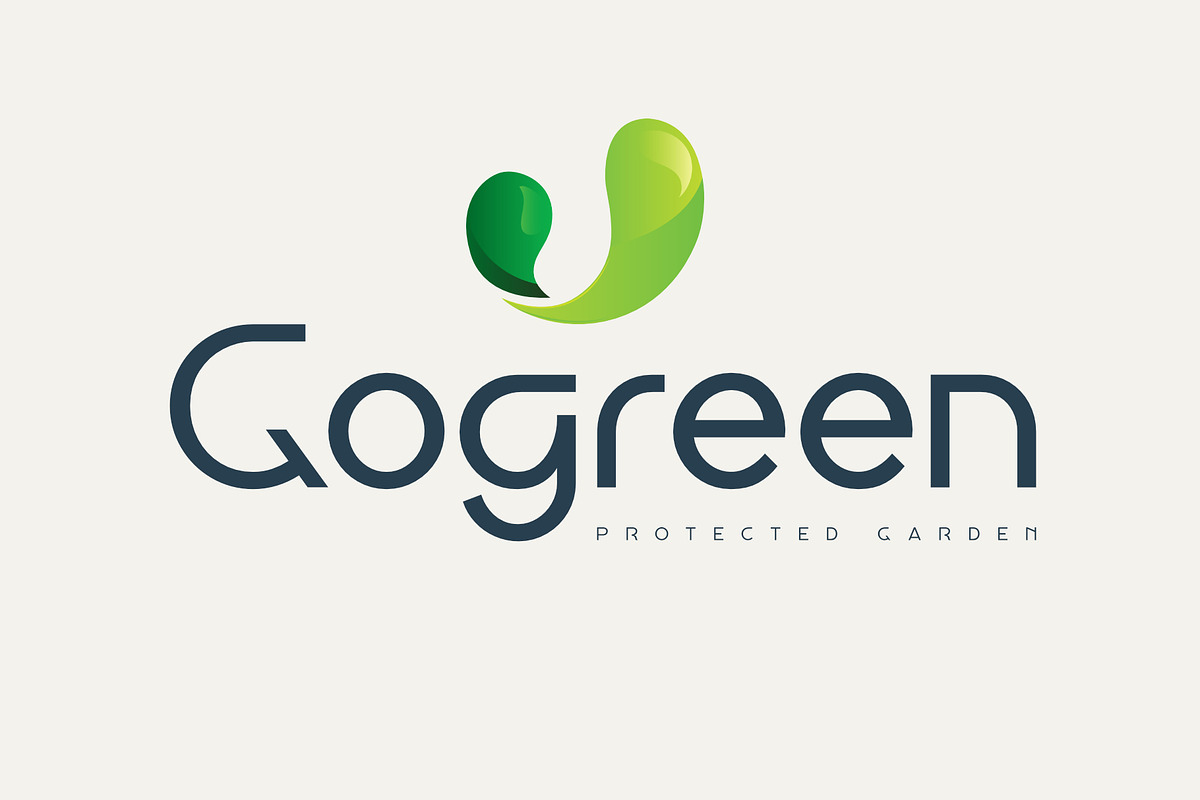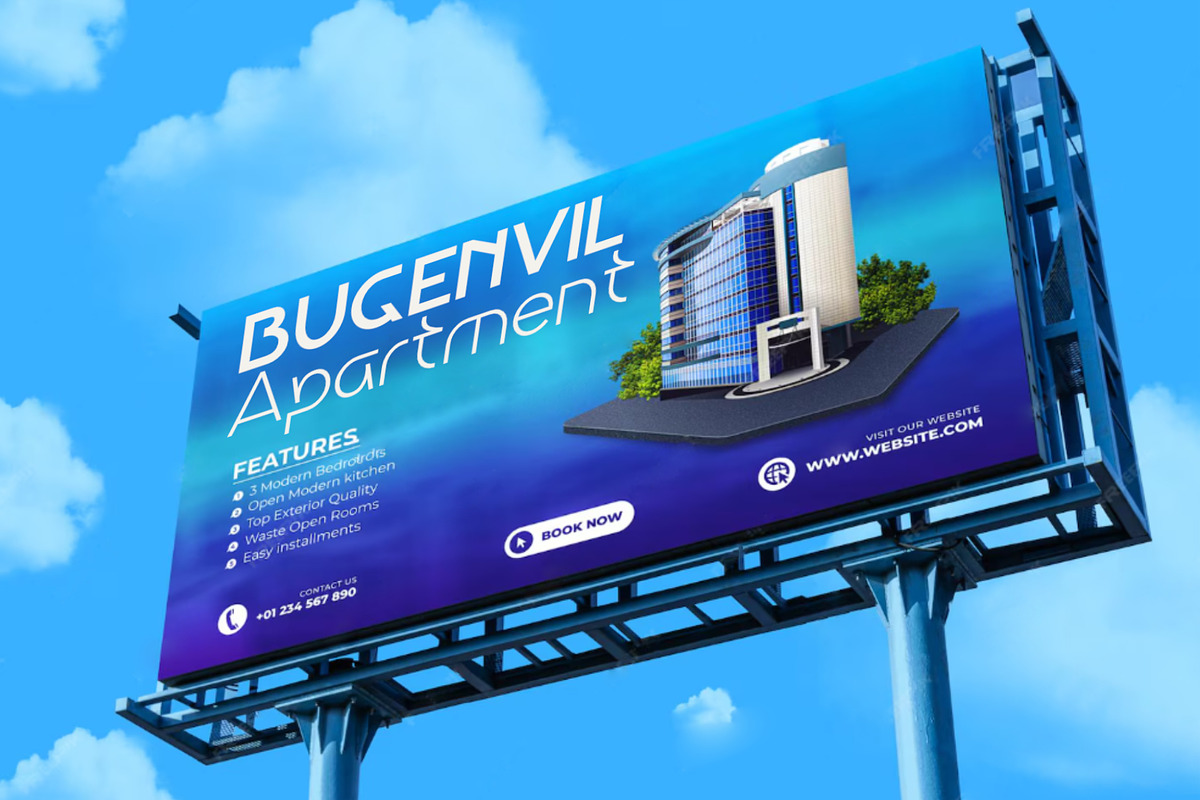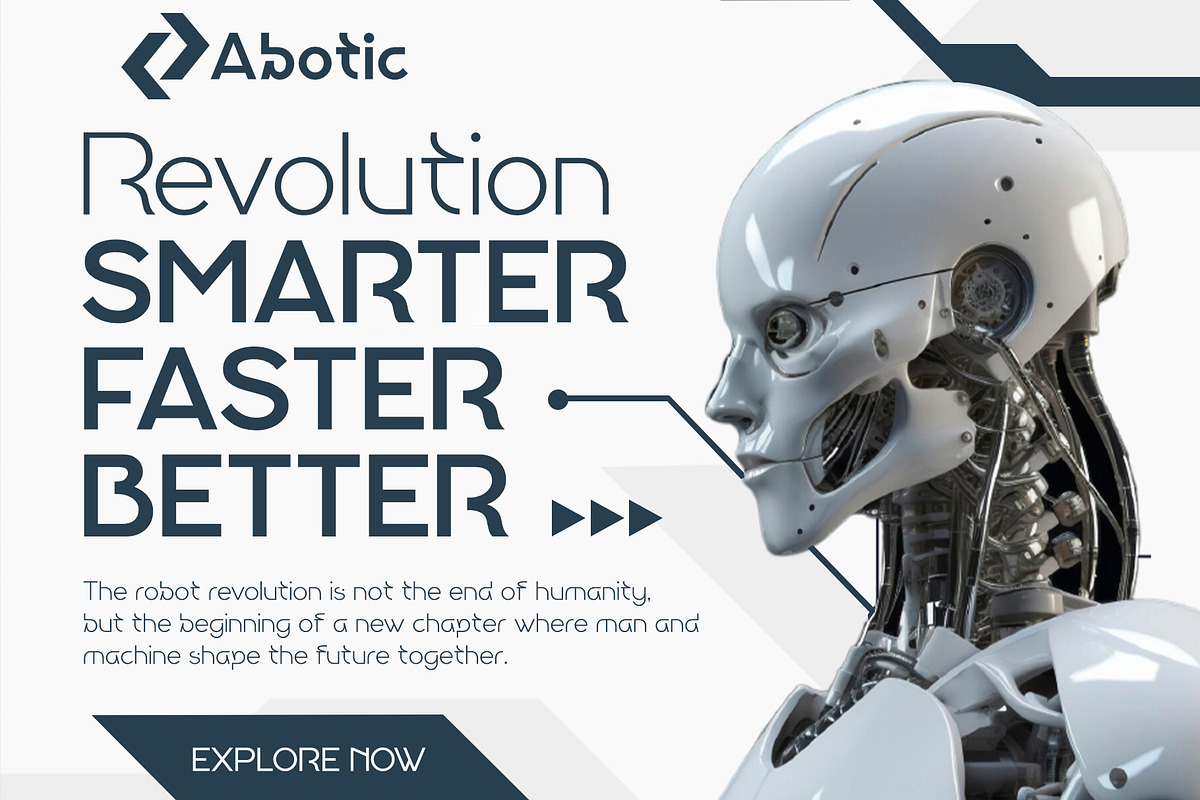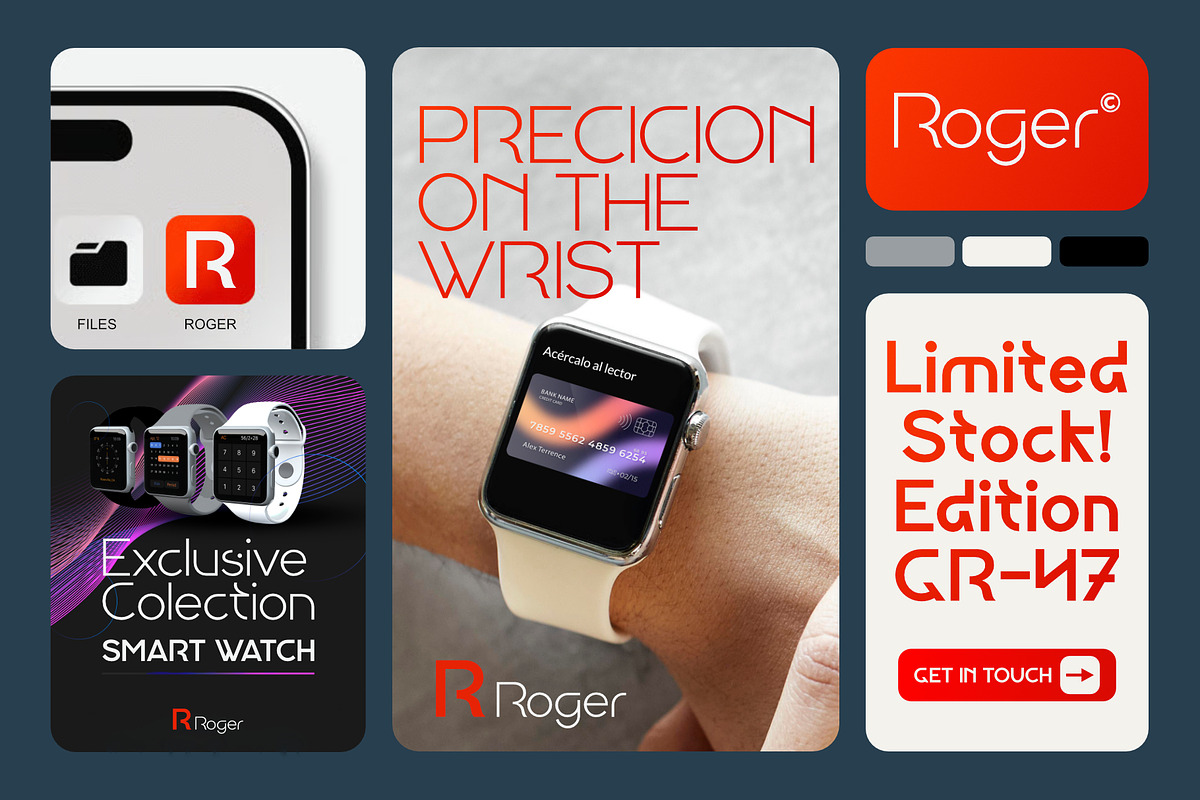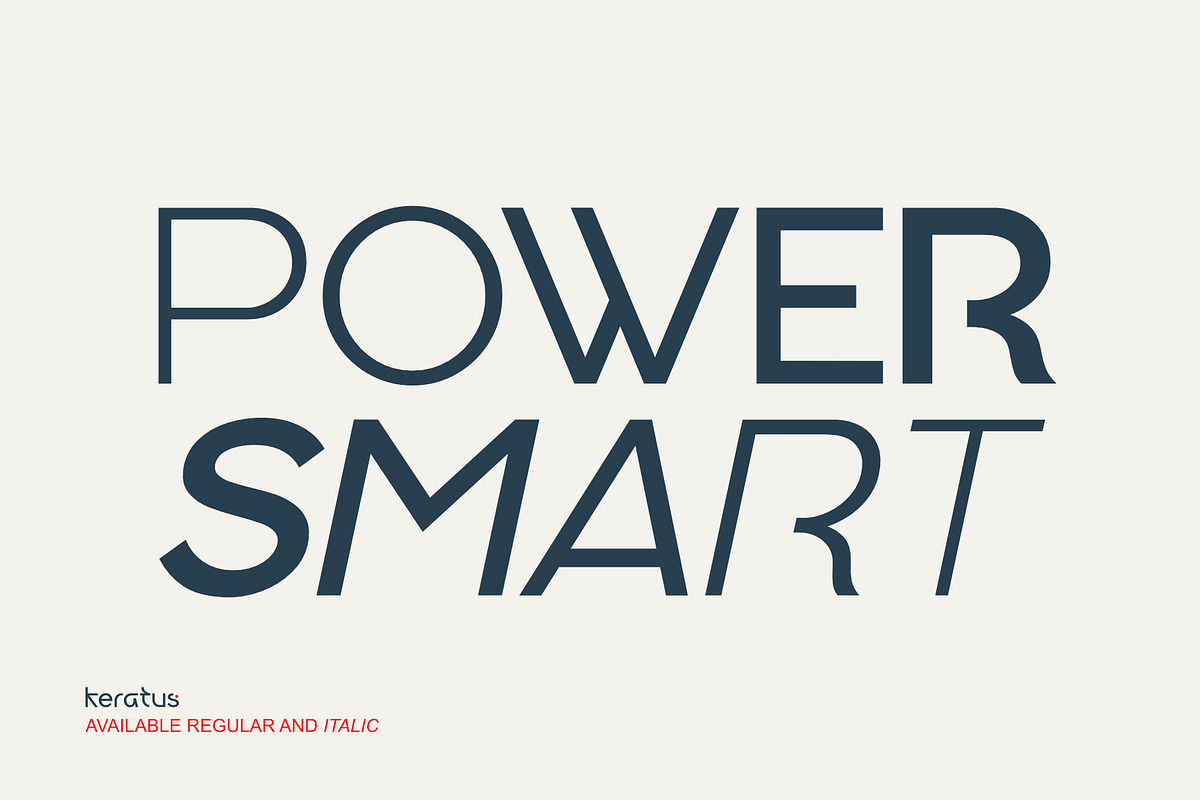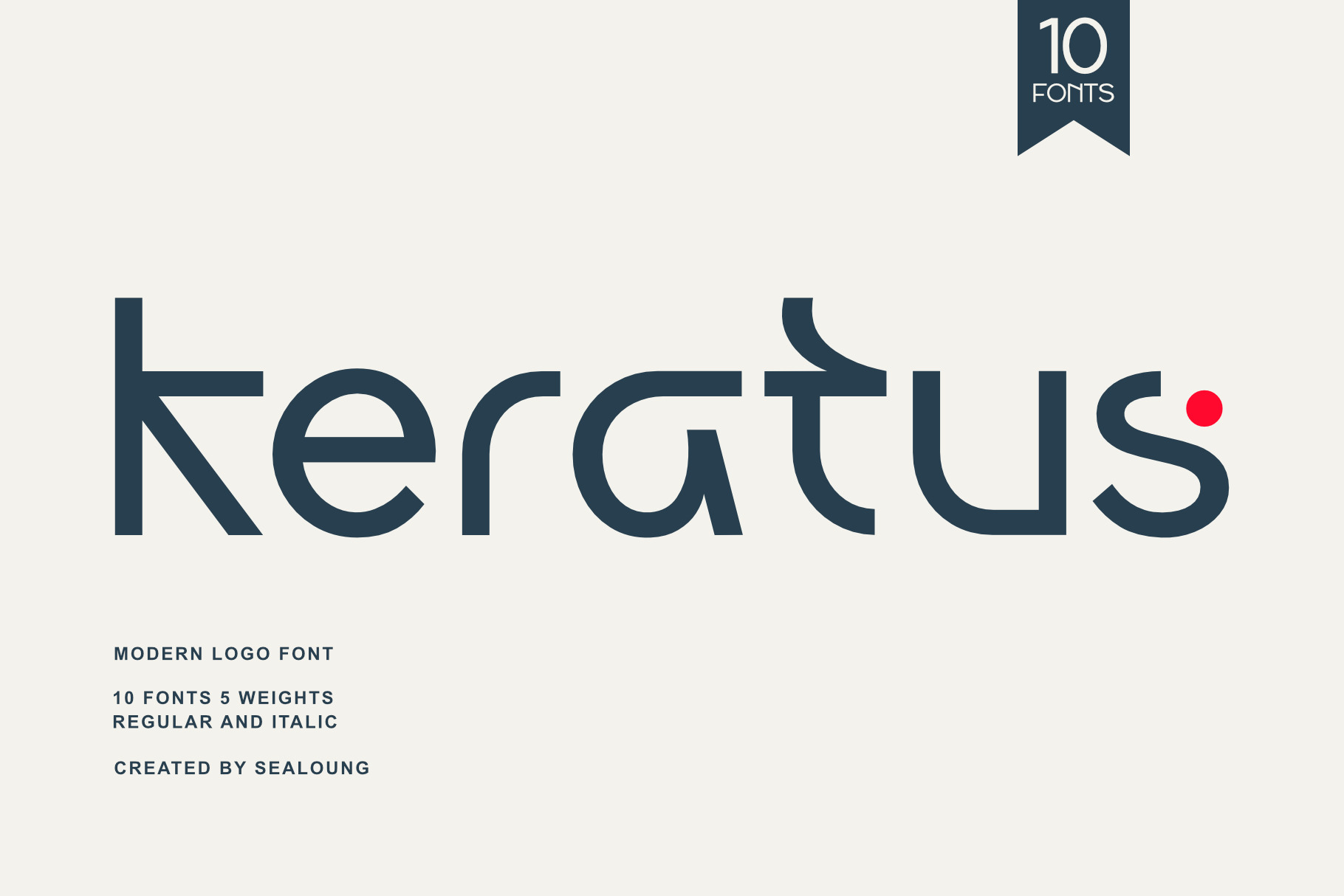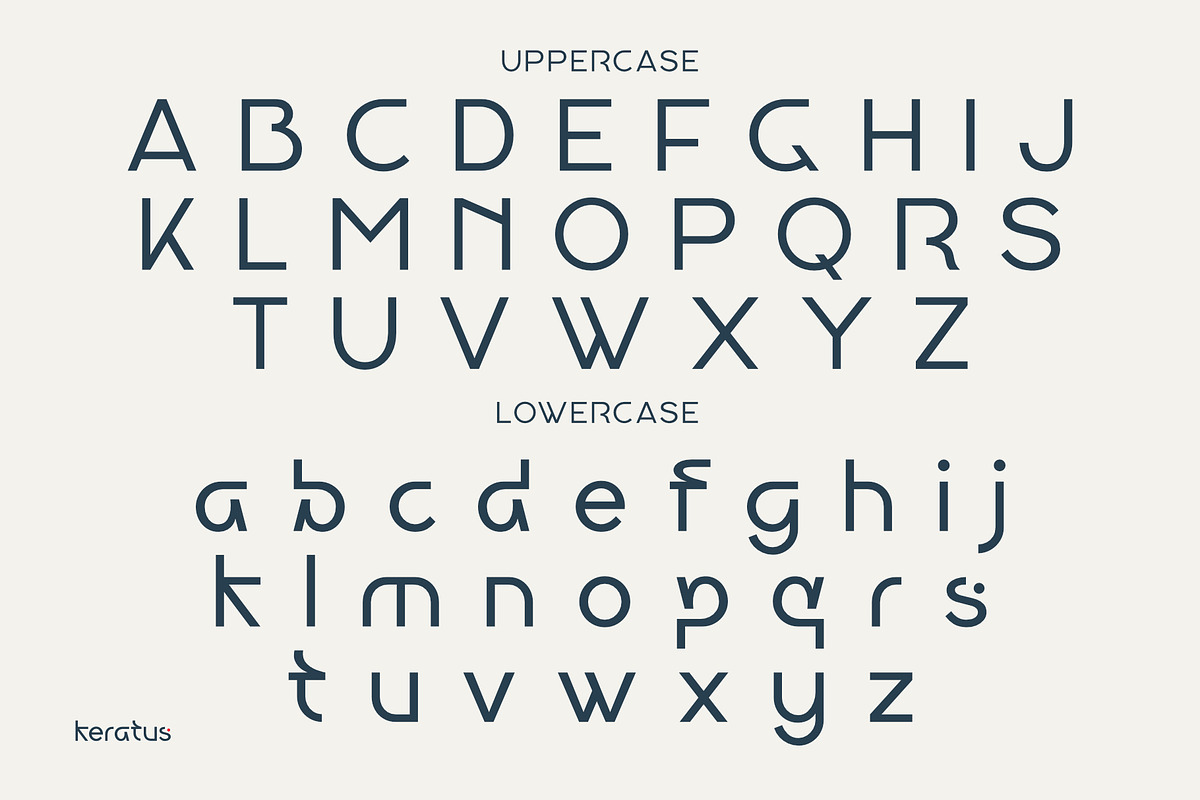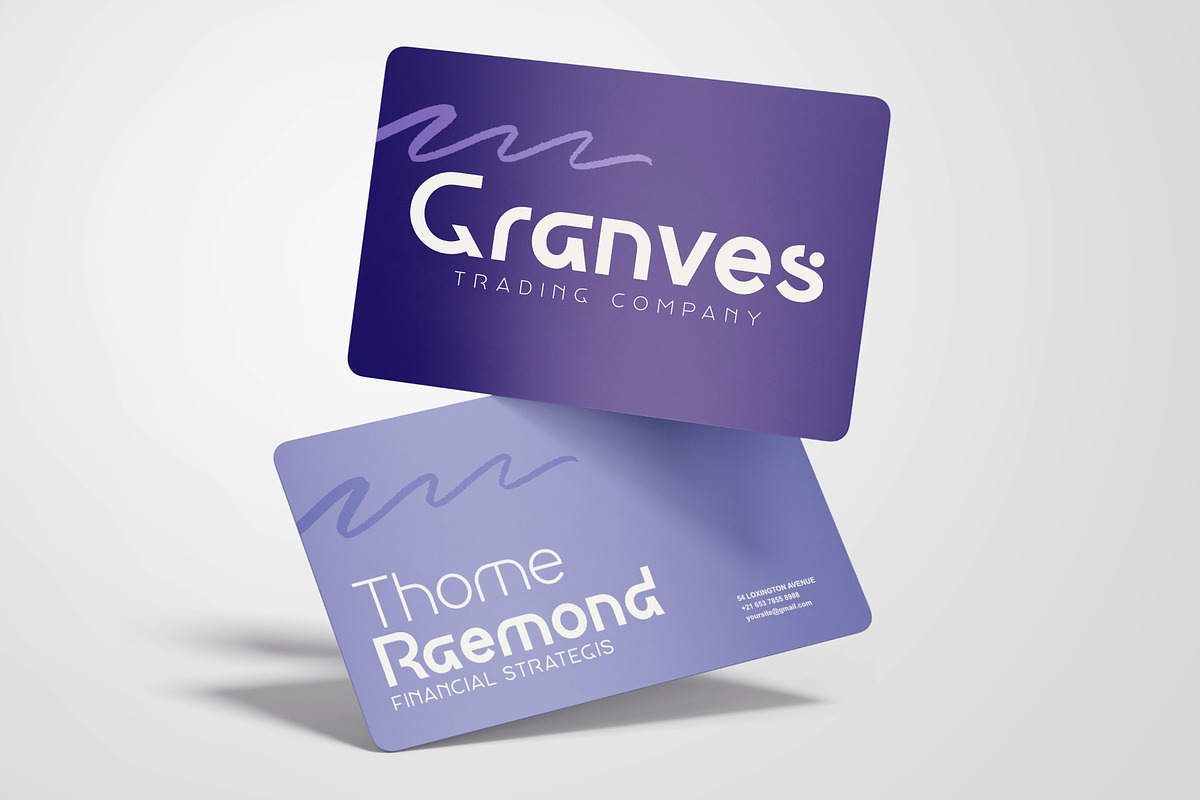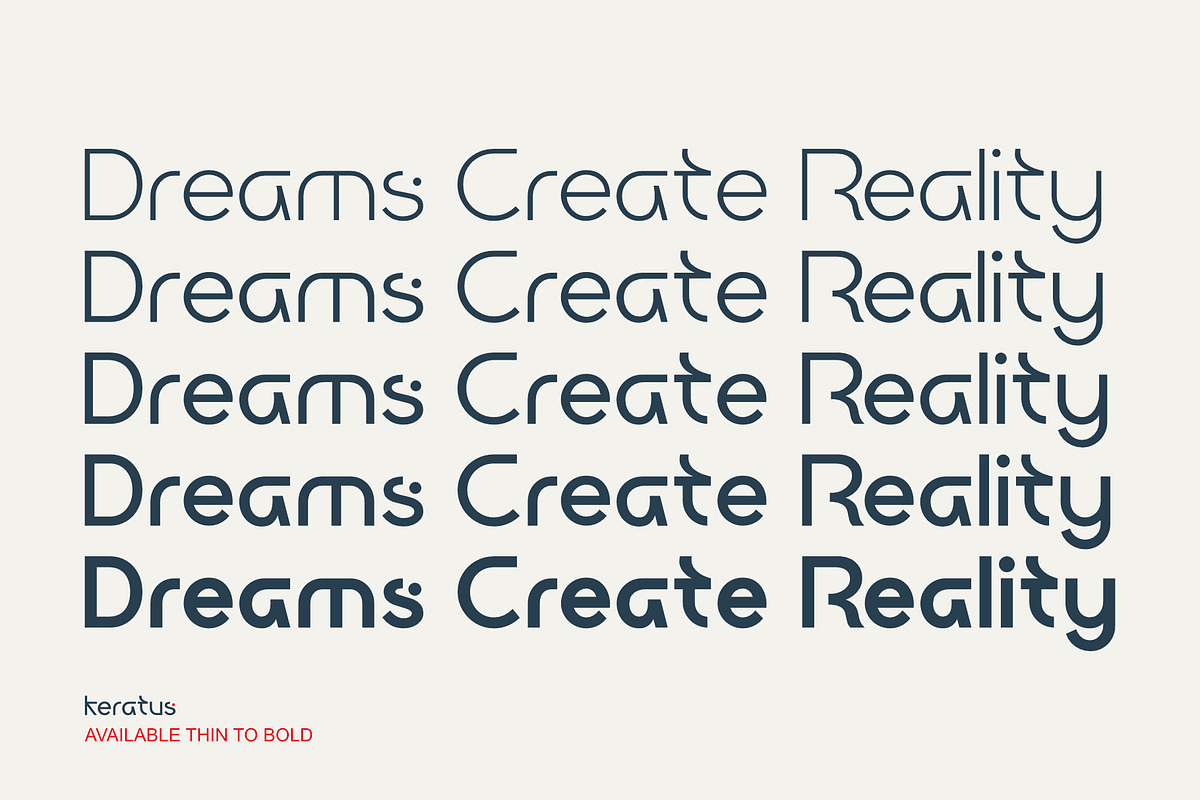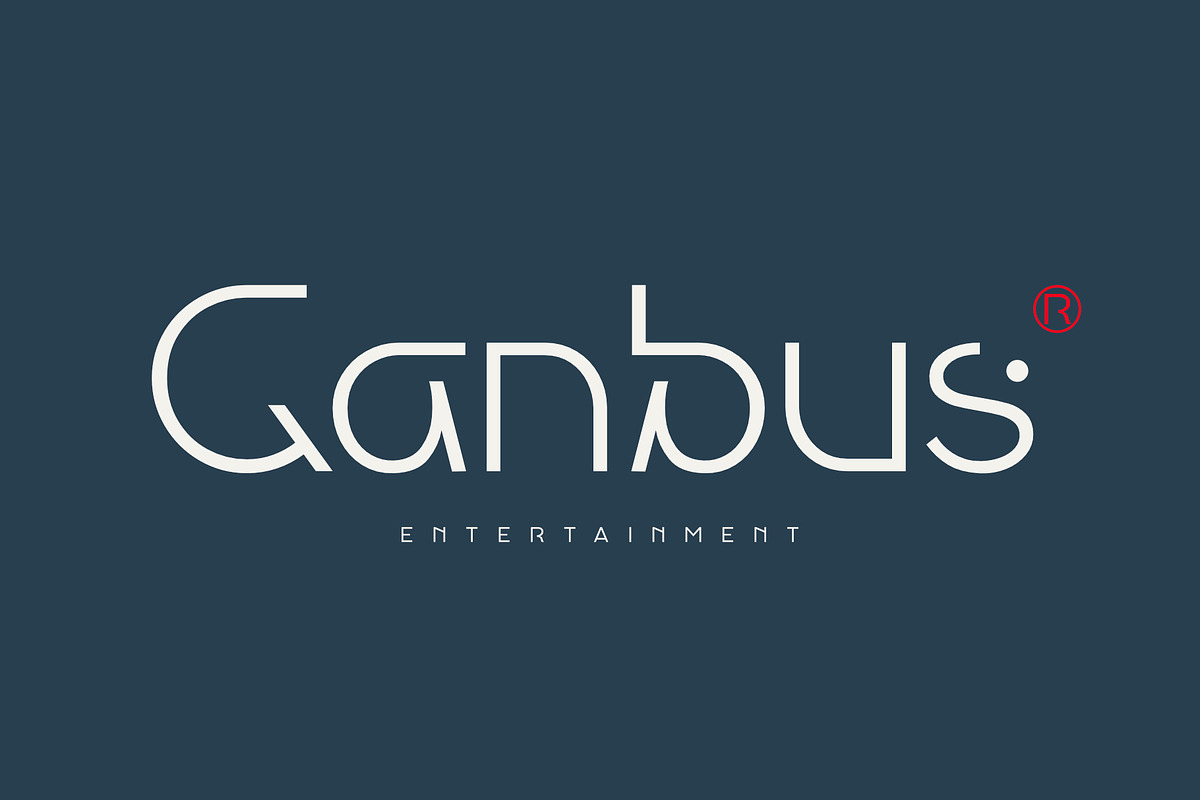
Keratus - Modern Sans Logo Font
Keratus – Modern Sans Serif Logo Font
Keratus is a modern sans-serif typeface that blends minimalist elegance with clean geometric shapes. With balanced proportions and refined details, it delivers a professional, innovative, and dynamic look perfect for branding, editorial work, and digital design.
Available in multiple weights with complete OpenType features, Keratus offers high versatility while maintaining excellent readability. It’s an ideal choice for projects that demand a modern, bold, and sophisticated style.